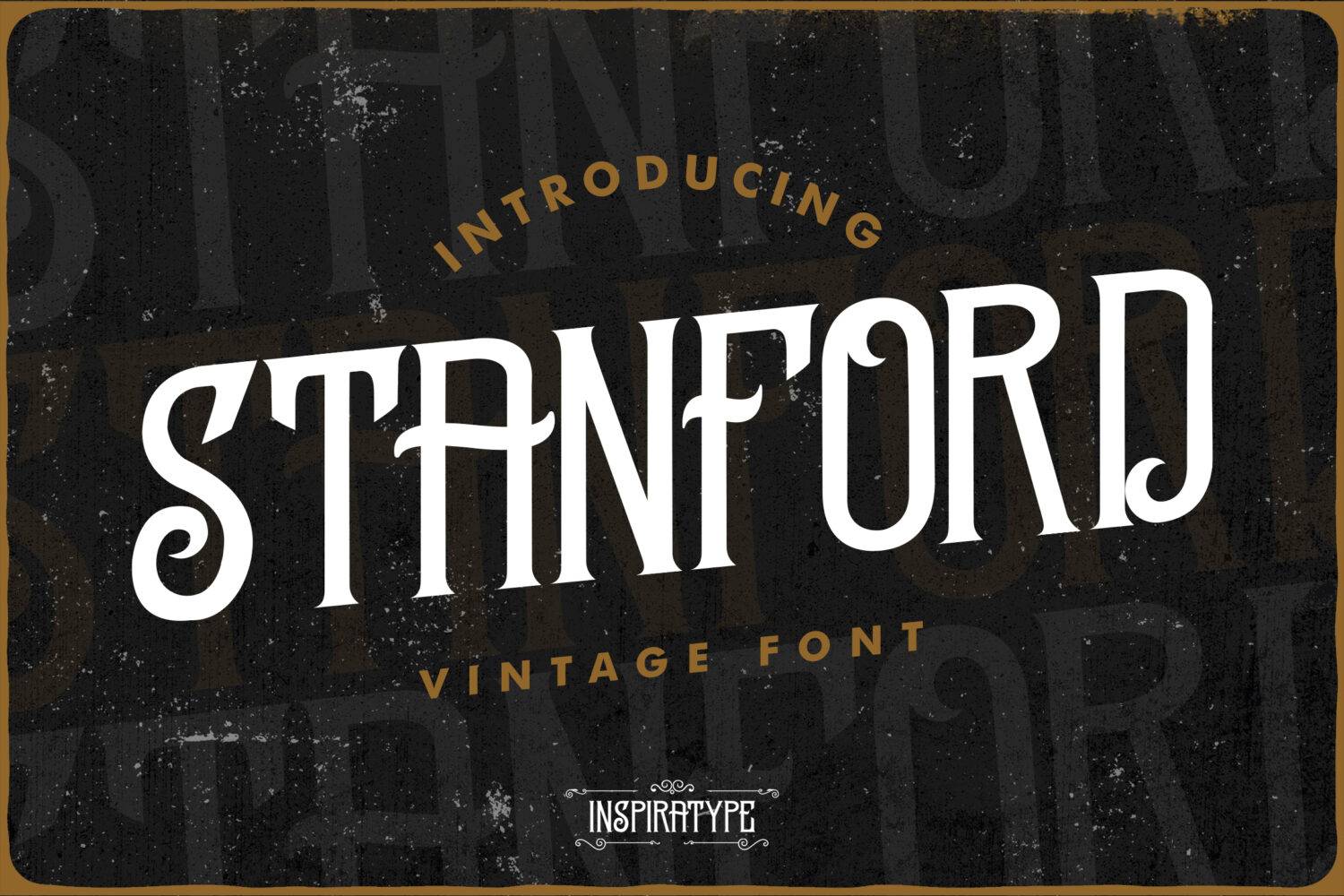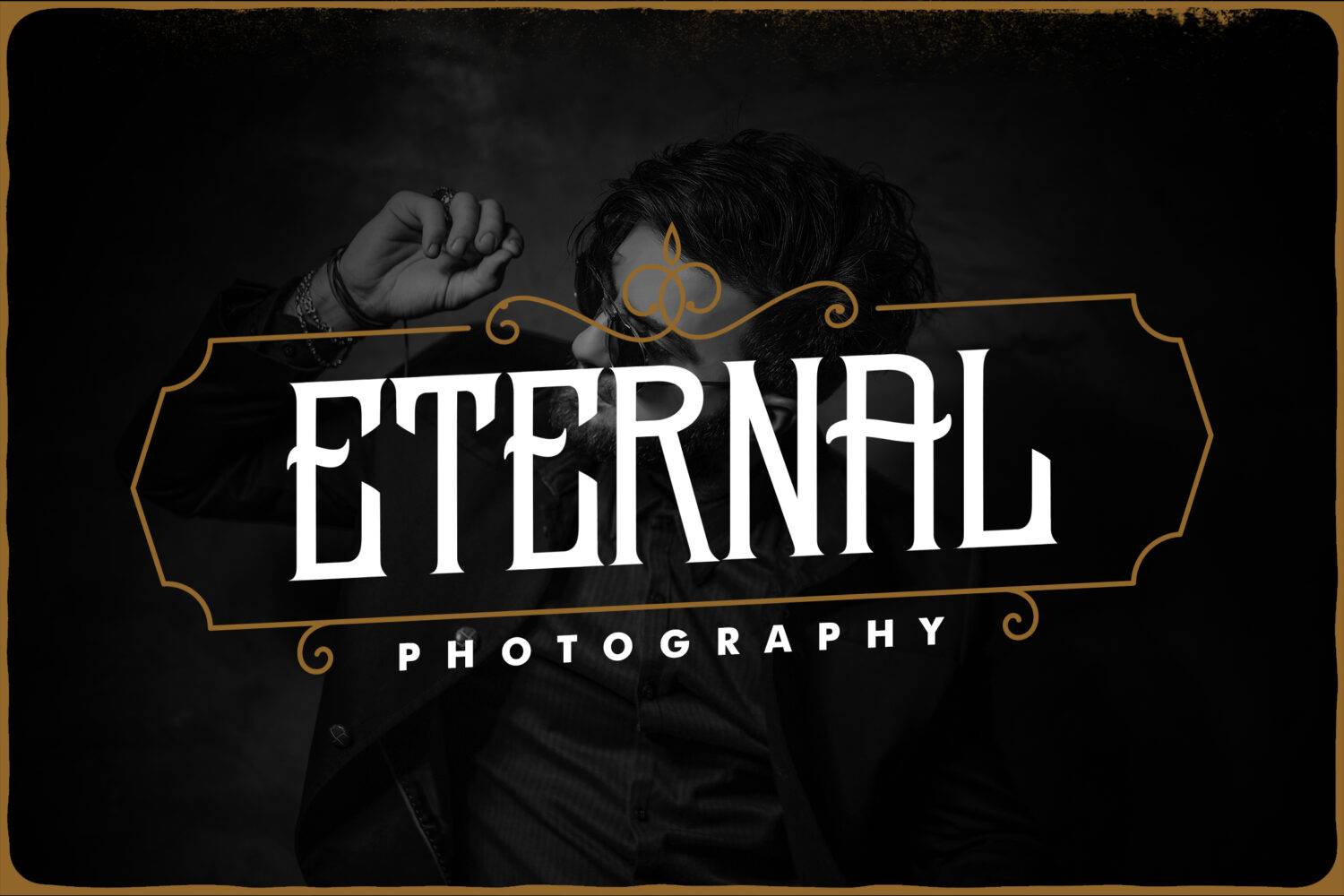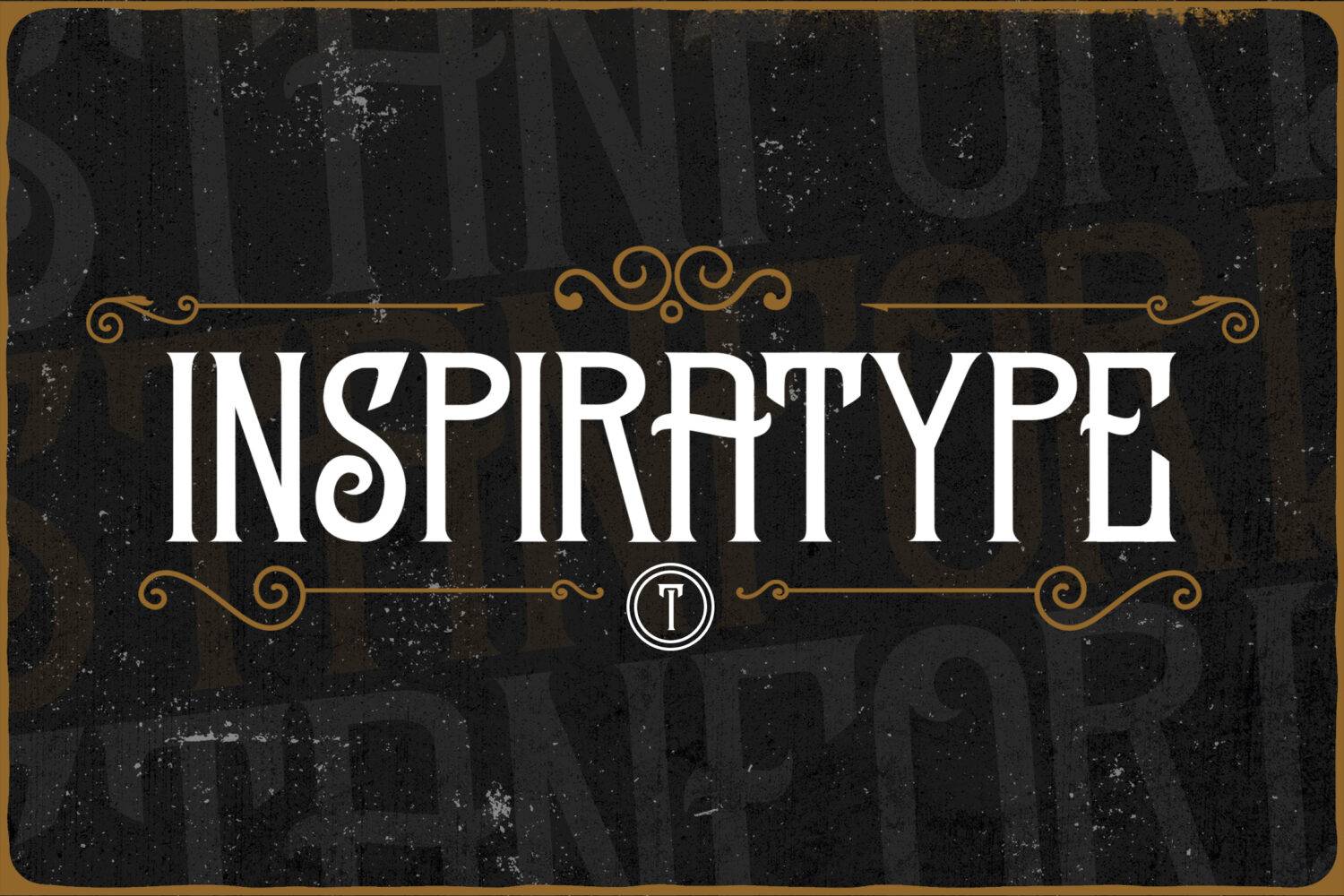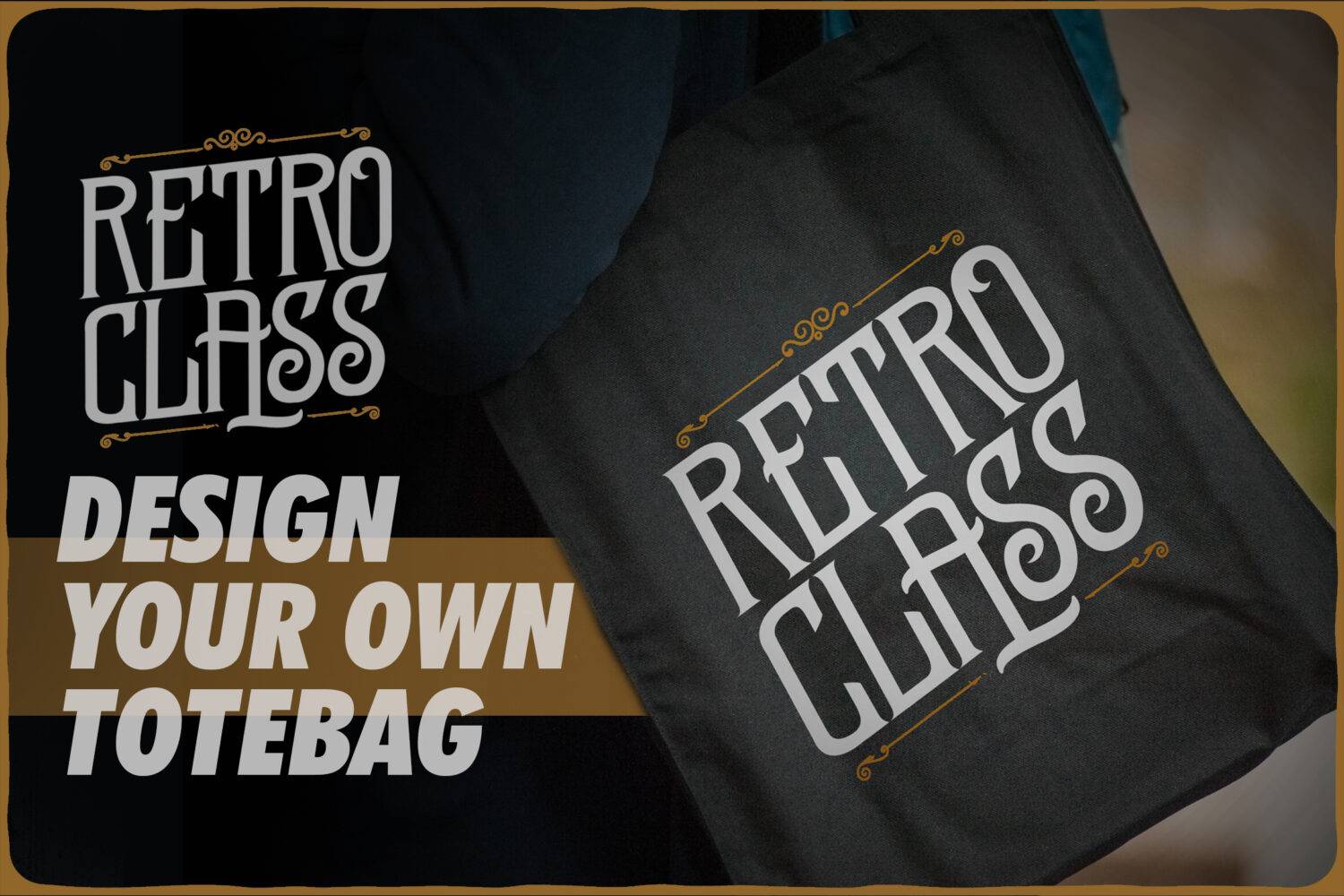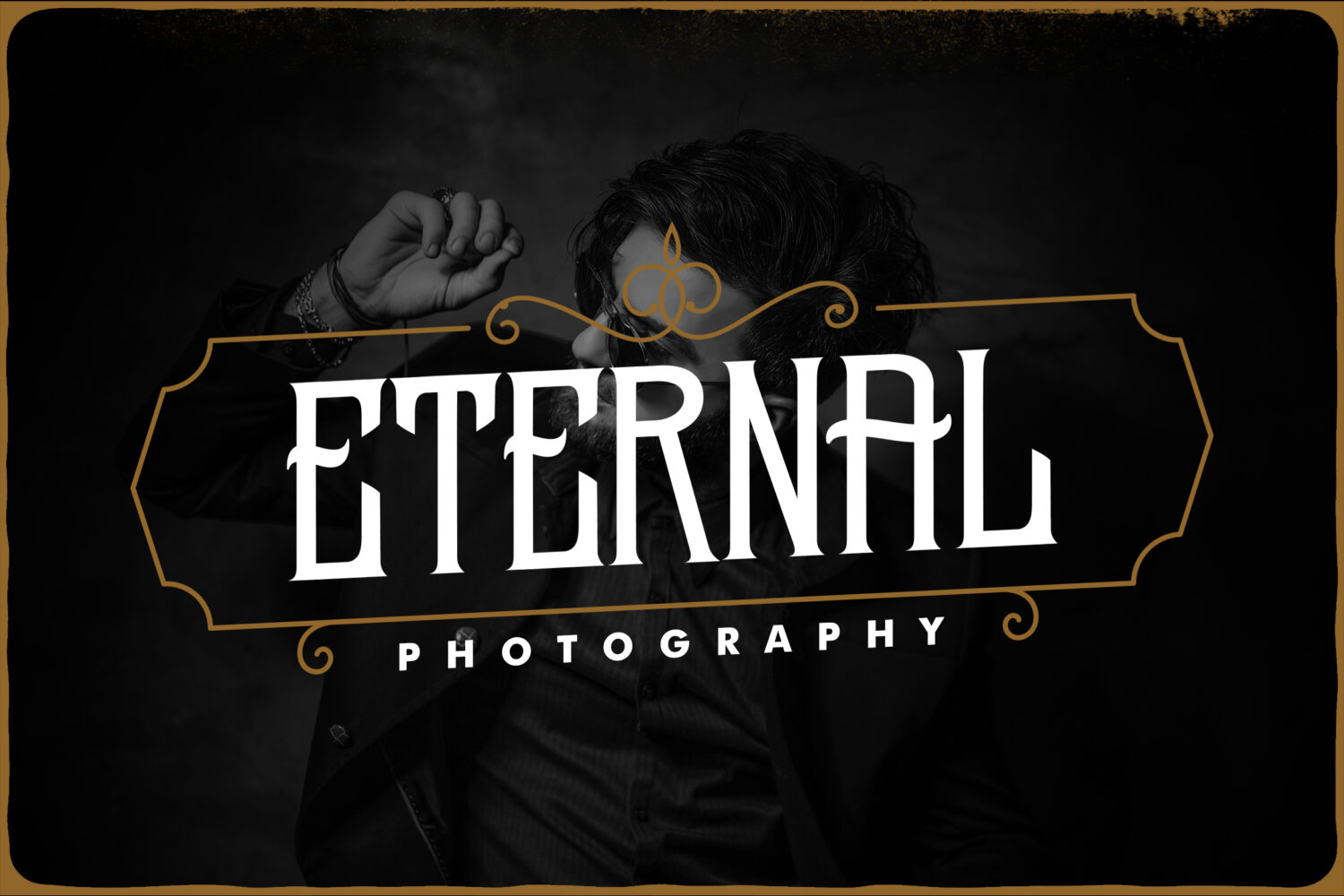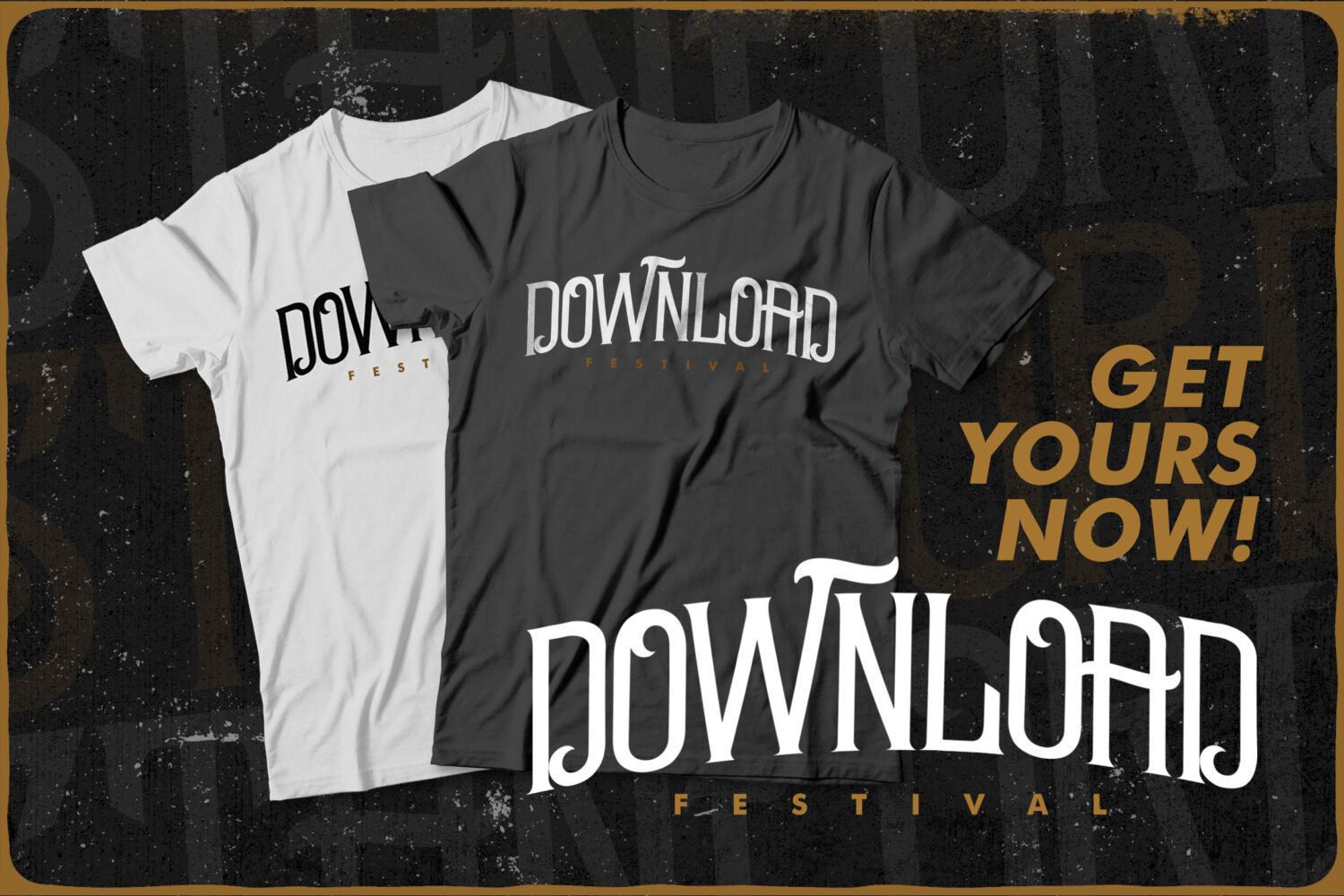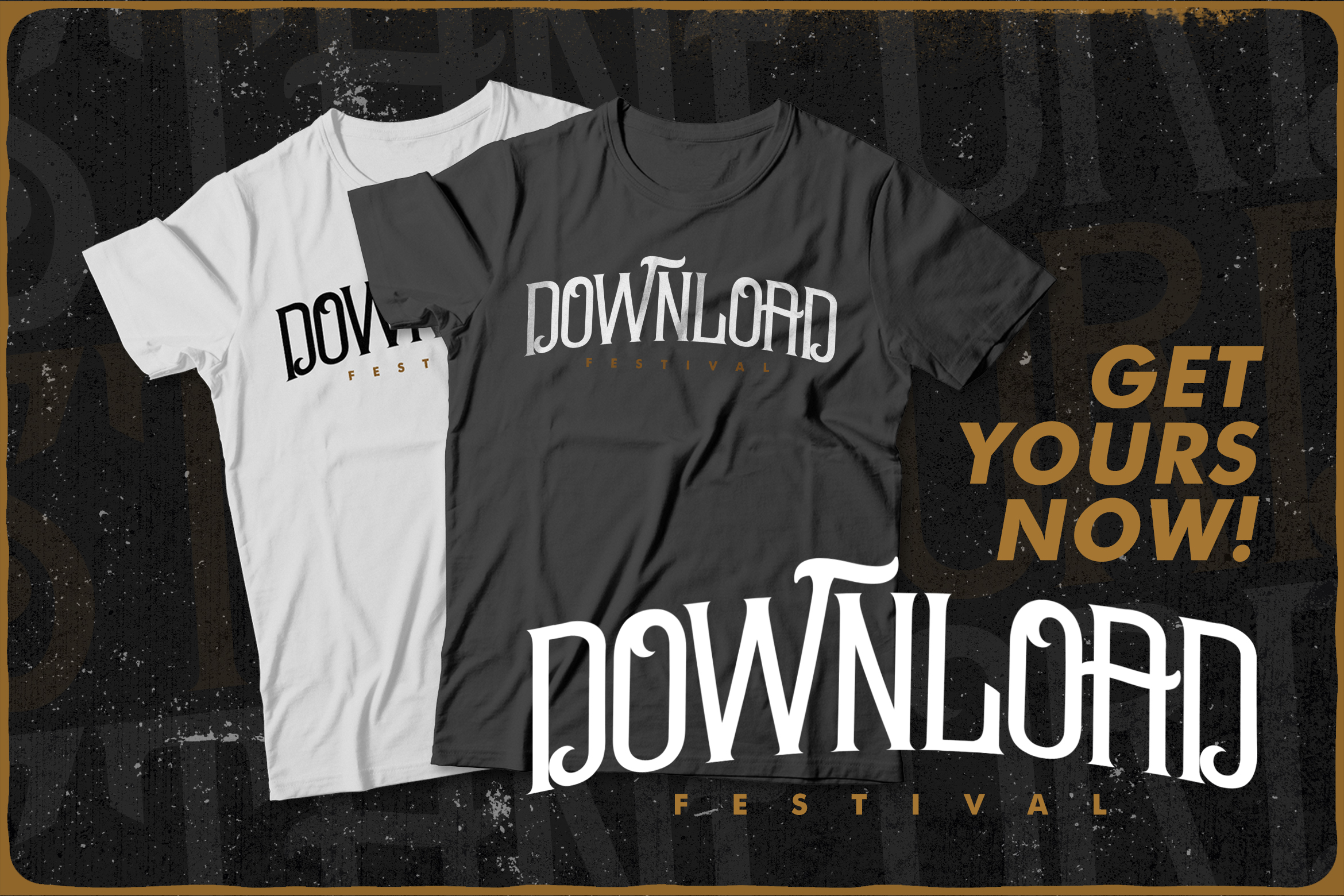
Stanford is a decorative serif font with a distinctive vintage flair, featuring tall, narrow letterforms and high contrast between thick and thin strokes. Its unique curled terminals and sharp serifs give it a playful yet refined personality, making it ideal for creative headlines, logos, and branding that seek a touch of old-world charm with modern originality. This font works best in display settings where its intricate details can shine and add a memorable character.
Stanford
About Stanford